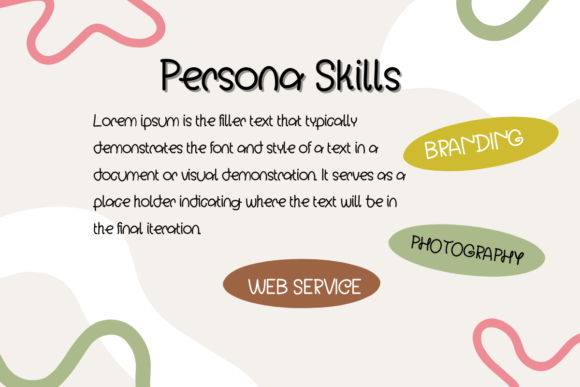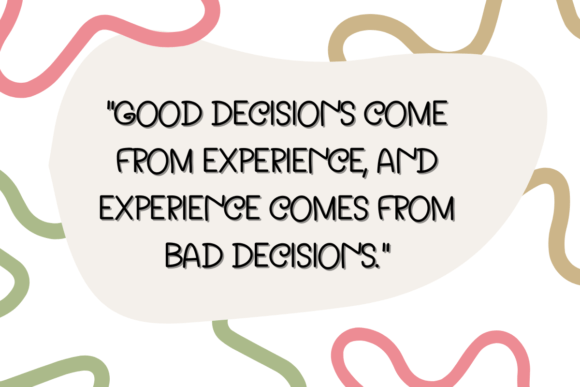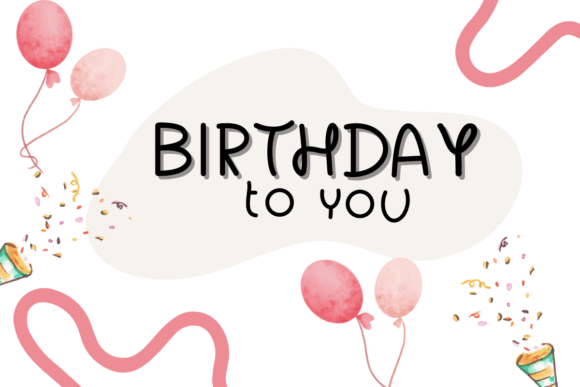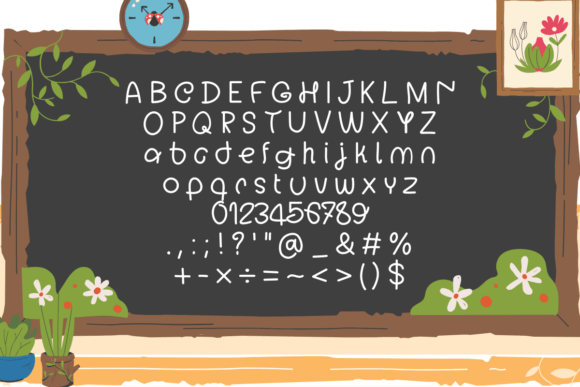
Introducing Classroom Font: The Fun and Quirky Handwritten Font for Creative Projects
Are you tired of using the same old boring fonts for your creative projects? Look no further! Classroom Font is a fun and quirky handwritten font that’s perfect for adding a personal touch to your designs. In this article, we’ll explore the features and uses of Classroom Font, and show you how to make the most of this versatile font.
What is Classroom Font?
Classroom Font is a unique and playful handwritten font that’s designed to bring a smile to your face. Its quirky and irregular strokes make it perfect for creating eye-catching designs that stand out from the crowd. Whether you’re a student, teacher, or designer, Classroom Font is a great addition to your font collection.
Uses of Classroom Font
So, what can you use Classroom Font for? The possibilities are endless! Here are some ideas to get you started:
- Note-taking: Use Classroom Font to add a personal touch to your notes and make studying more fun.
- Diary writing: Write your diary entries in Classroom Font for a unique and expressive touch.
- Greeting cards: Create handmade greeting cards with Classroom Font for a special and personalized message.
- Banners: Use Classroom Font to create eye-catching banners for parties, events, or promotions.
- Social media posts: Add a playful touch to your social media posts with Classroom Font.
- Mugs and water bottles: Design custom mugs and water bottles with Classroom Font for a fun and quirky gift.
- T-shirts and hoodies: Create custom apparel with Classroom Font for a unique and expressive fashion statement.
- Stationery: Use Classroom Font to create custom stationery, such as notebooks, journals, and stickers.
Why Choose Classroom Font?
So, why choose Classroom Font over other fonts? Here are just a few reasons:
- Unique and playful: Classroom Font is a one-of-a-kind font that’s sure to add a touch of personality to your designs.
- Versatile: Classroom Font can be used for a wide range of projects, from notes and diaries to banners and social media posts.
- Easy to read: Despite its quirky design, Classroom Font is easy to read and understand, making it perfect for both personal and professional use.
Tips for Using Classroom Font
Here are some tips for getting the most out of Classroom Font:
- Experiment with colors: Classroom Font looks great in a variety of colors, so don’t be afraid to experiment and find the perfect hue for your design.
- Mix and match: Combine Classroom Font with other fonts and design elements to create a unique and eye-catching design.
- Keep it simple: Don’t overcomplicate your design – sometimes, less is more, and Classroom Font can shine on its own.
Classroom Font is a fun and quirky handwritten font that’s perfect for adding a personal touch to your designs. With its unique and playful design, versatility, and ease of use, it’s a great addition to any font collection. Whether you’re a student, teacher, or designer, Classroom Font is sure to inspire creativity and bring a smile to your face. So why not give it a try and see what amazing designs you can create?